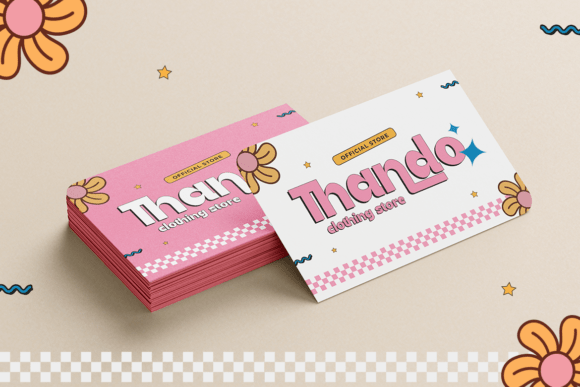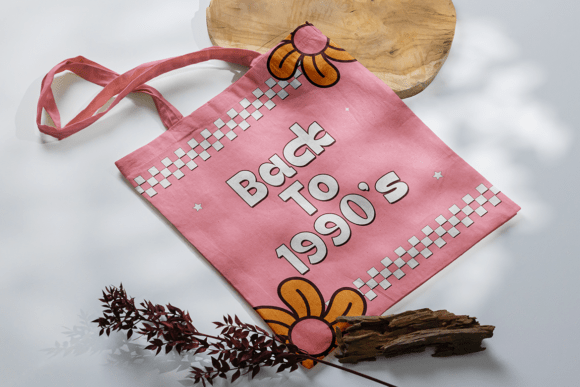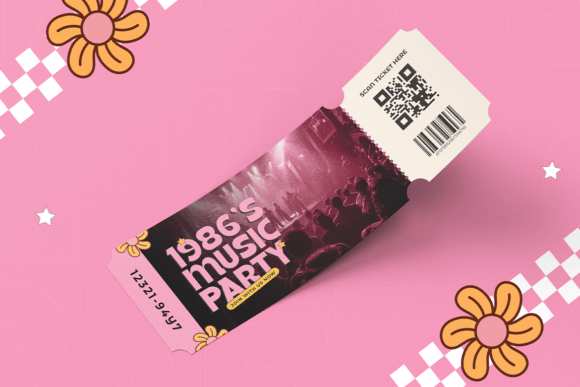
Introduction to Rodnick Font
Have you ever stumbled upon an old vinyl record or a vintage poster that instantly transports you back in time? For designers, that feeling is what the Rodnick Font is all about. This beautifully crafted display font is the perfect design resource for anyone looking to inject a playful and nostalgic spirit into their creative project.
With its smooth curves, soft rounded edges, and substantial weight, the Rodnick Font embodies that unmistakable vintage flair. Whether you’re working on a project that requires a high-quality font with a transparent background or simply need a bold, eye-catching style for your headline or title, Rodnick Font is the ideal choice.
- Unique, creative style that sets it apart from other fonts in its class
- Includes a range of glyphs and characters, making it suitable for a variety of design applications
- High-quality design: The Rodnick Font is beautifully crafted with clean lines, smooth curves, and a professional feel.
- Limited font weights: The Rodnick Font comes with a limited number of font weights, which might not be suitable for all design projects.
- No italic or oblique styles: Unfortunately, the font doesn’t include italic or oblique styles, which can be a drawback for designers who require these features.
Overall, the Rodnick Font is a great addition to any designer’s toolkit. While it has some limitations, its high-quality design and free download make it an excellent resource for creative projects. I’d definitely recommend giving it a try!
The Rodnick Font is ideal for creative projects, such as graphic design, digital art, and branding. Its high quality and versatility make it a valuable addition to any design resource library.